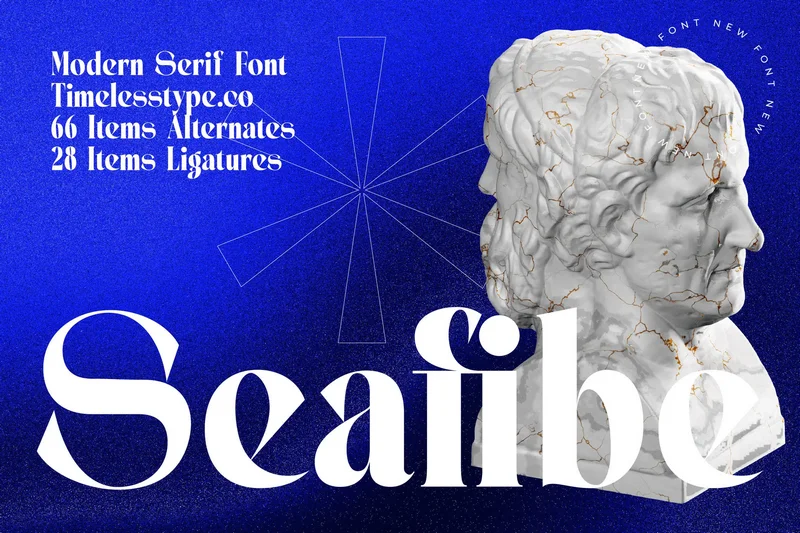
Seafibe – Modern Serif Font
Seafibe is a modern serif font that combines bold strokes with refined elegance, delivering a striking balance of creativity and sophistication. With stylish alternates and elegant ligatures, this typeface is perfect for branding, editorial layouts, logos, packaging, posters, and high-end invitations. Its timeless yet contemporary design ensures versatility across both digital and print projects, making Seafibe a powerful tool for any designer.